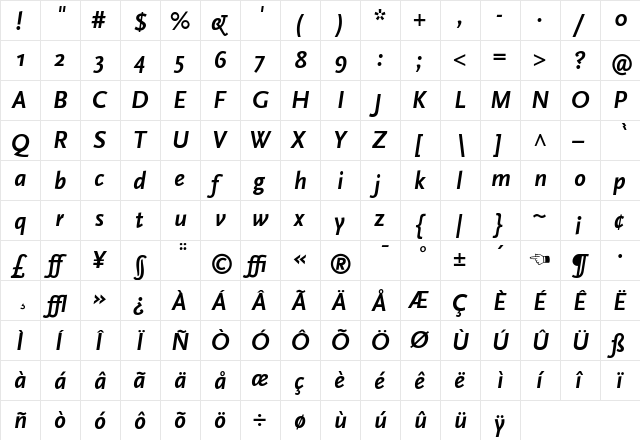
ScalaSans Bold Italic Font Preview
ScalaSans Bold Italic
ScalaSans Bold Italic Font Details
Design Context for ScalaSans Typeface
ScalaSans takes a measured approach to typography — its balanced proportions and neutral character make it a reliable workhorse for both digital and print work. Its italic angle brings a sense of urgency and motion to the letterforms. Its bold stroke weight gives it real presence on the page.